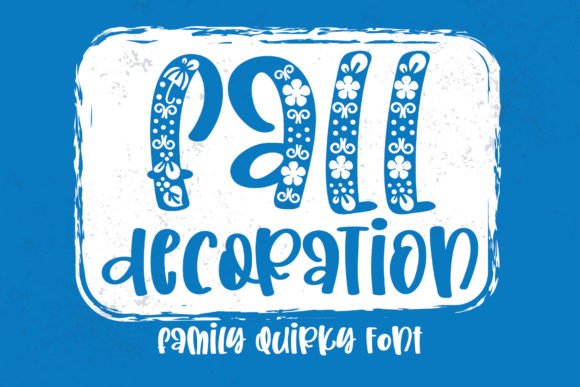
Falling in Love with Fall Decoration Font
As I sat at my craft table, surrounded by the vibrant hues of autumn, I knew exactly what I needed – a font that captured the essence of the season. And that’s when I stumbled upon the Fall Decoration Font, a delightful duo of display and decorative fonts that perfectly complement each other.
Designed to add a touch of warmth and coziness to your crafts, the Fall Decoration Font is the perfect companion for any fall-themed project. Whether you’re creating invitations, greeting cards, or scrapbook pages, these fonts are sure to bring a smile to your face and a twinkle to your design. As a designer, you’ll appreciate the ease of use and versatility of the Fall Decoration Font, which is PUA encoded for seamless access to all glyphs and swashes.
- Unique Characteristics: Fall Decoration Font features intricate, hand-drawn designs, and ornate details that evoke a sense of autumnal charm and coziness.
Designer Review: Fall Decoration Font
I recently had the chance to work with the “Fall Decoration Font” and I must say it’s an interesting addition to any design project.
- The font’s playful and whimsical feel is perfect for fall-themed designs. It adds a sense of warmth and coziness that’s perfect for the season.
- The font’s versatility allows it to be used in a variety of projects, from social media graphics to product labels.
- The font’s unique design elements, such as the leaf and acorn symbols, add an extra layer of visual interest to designs.
- The font may be too playful for more serious or formal designs, which could detract from the overall message.
- The font’s unique design elements may not be suitable for all types of projects, such as business reports or academic papers.
- The font may be too similar to other fonts in the same style, making it less distinctive in a crowded market.
The “Fall Decoration Font” is a solid addition to any design project, but it may not be the best choice for every situation. Its playful and whimsical feel makes it perfect for fall-themed designs, but it may not be suitable for more serious or formal projects. Overall, I would recommend this font for designers looking to add a touch of fall flair to their designs.
Q: Can I customize Fall Decoration Font to fit my specific design needs?
Yes, you can customize Fall Decoration Font to fit your specific design needs. The font includes a range of OpenType features, including ligatures, swashes, and ornaments, which can be used to create unique and customized designs. You can also use font editing software to modify the font’s appearance, such as changing the color, size, or style of the font.